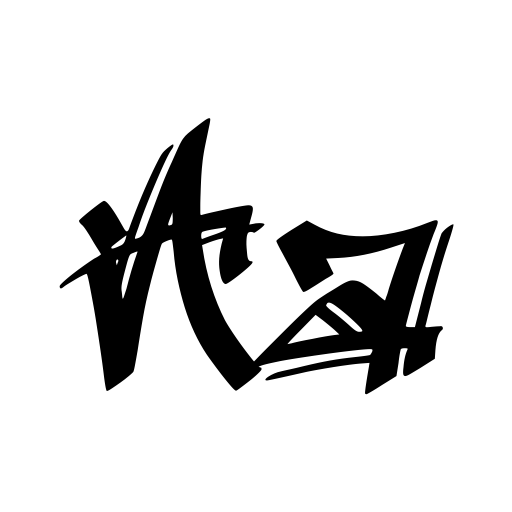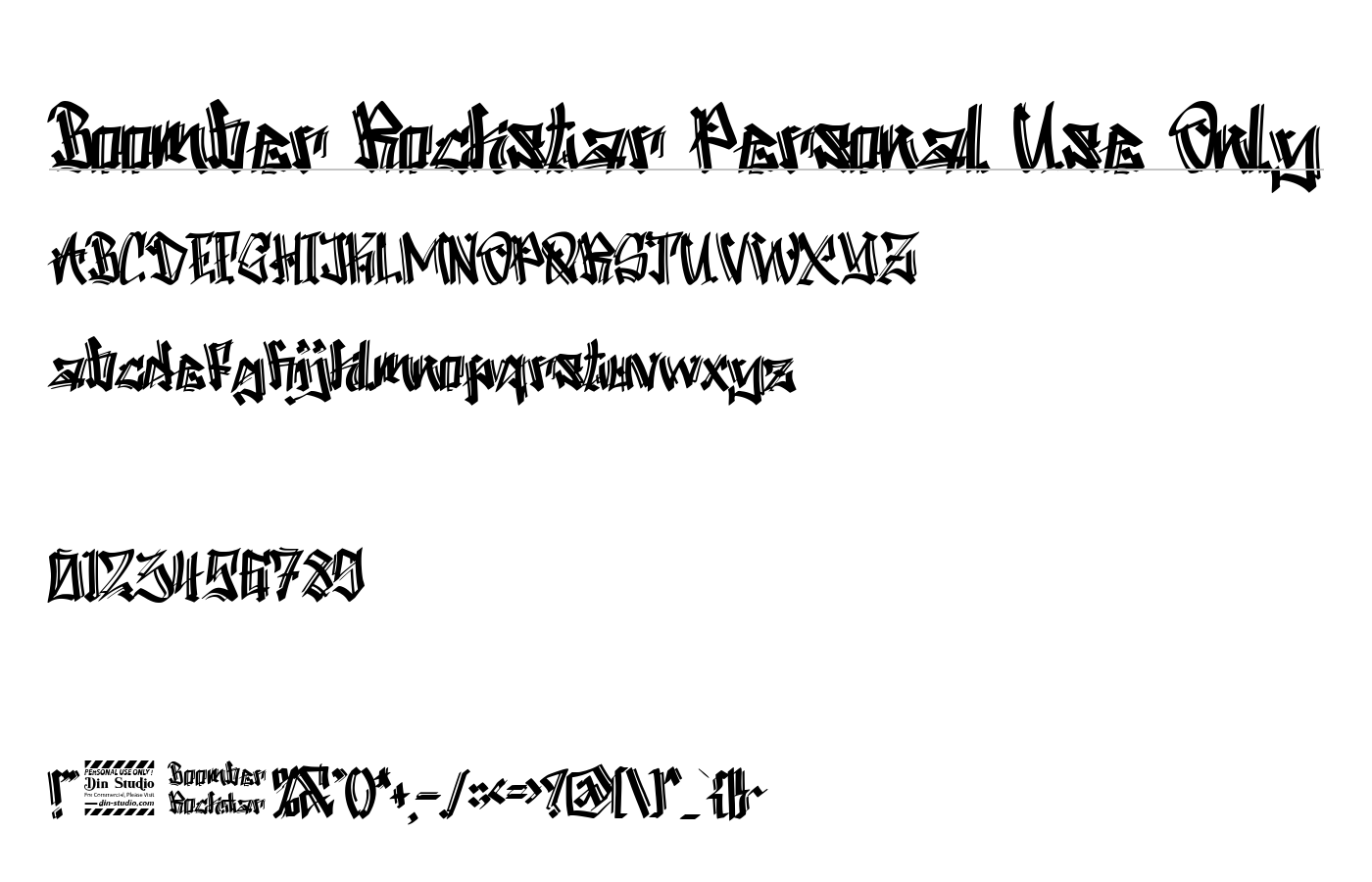
Boomber Rockstar Personal Use Font is a bold, edgy display typeface with a graffiti-inspired style that combines sharp angles and dense, irregular strokes. Its high contrast and intricate letterforms give it a rebellious, urban vibe, making it perfect for designs that demand attention and convey energy, such as posters, album covers, or streetwear branding. This font works best in headline or logo use where its distinctive personality can truly stand out.
Boomber Rockstar Personal Use Font
About Boomber Rockstar Personal Use Font